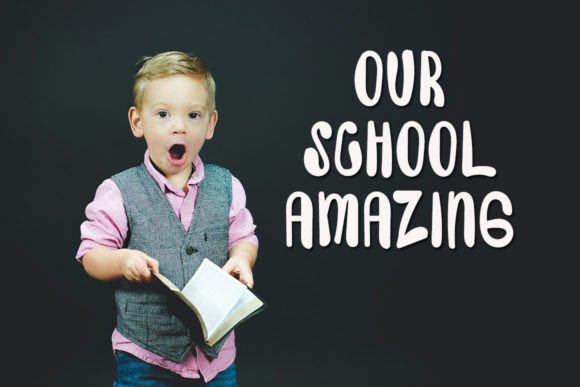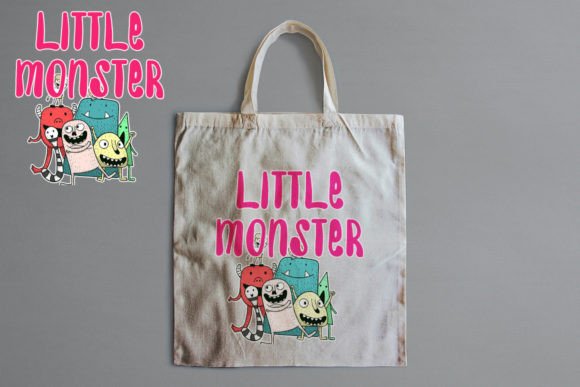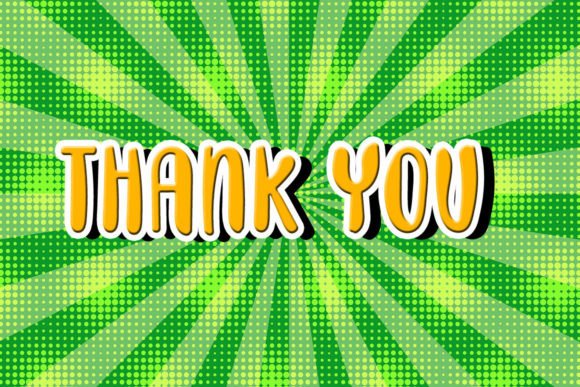
Introduction to Hello Thore Font
Have you ever stumbled upon a font that makes you smile? For designers, this is a common occurrence, but it’s especially true when you discover a font that perfectly captures the essence of your creative project. For me, that font is the Hello Thore Font. Its fresh, clean, and elegant design is the perfect combination of style and sophistication, making it a valuable addition to any design resource.
Imagine a font that can add a touch of joy to your designs, from a simple logo to a complex layout. The Hello Thore Font is that font. With its high-quality design and versatility, it’s no wonder why designers are turning to this font for their creative projects. Whether you’re working on a formal or informal project, this font is sure to impress. And the best part? It’s available for a free download, making it an accessible design resource for designers of all levels.
As a design resource, the Hello Thore Font is a game-changer. Its transparent background and elegant design make it perfect for use on a variety of backgrounds, from a simple white to a complex pattern. Whether you’re looking to add a touch of elegance to your design or simply want a high-quality font to use in your next project, the Hello Thore Font is an excellent choice.
Key Features of Hello Thore Font
- Unique, hand-drawn design ideal for creative projects requiring a personal touch.
- Transparent background, allowing for seamless integration with any design resource.
- Perfect for designers seeking a high-quality, free design resource with a personal touch.
Honest Review: Hello Thore Font
As a designer, I’m always on the lookout for high-quality design resources to enhance my creative projects. Recently, I came across the Hello Thore Font, and I must say it’s been a pleasant discovery.
What works well with this font is its unique and elegant design. The Hello Thore Font is perfect for creating a sophisticated and professional look for your projects. It’s also available for free download, which is a huge plus. The transparent background feature allows for seamless integration with any design.
Pros and Cons:
- ✨ Unique and elegant design
- ✨ Transparent background feature
- ⚠️ Limited font styles available
- ⚠️ Not suitable for bold or dramatic designs
Overall, I’m impressed with the Hello Thore Font. Its high quality and versatility make it a valuable addition to any designer’s toolkit. While it may not be perfect for every project, it’s definitely worth considering for your next creative endeavor.
Hello Thore Font
Hello Thore Font is a high-quality, free design resource ideal for creative projects. It features a transparent background, making it easy to use in various design applications.
Tips for Getting the Most Out of Hello Thore Font
To get the most out of Hello Thore Font, use it in conjunction with other design elements, such as images and graphics. Experiment with different font sizes, colors, and styles to create a unique look.
Hello Thore Font is ideal for use in a variety of creative projects, including social media graphics, blog posts, and presentations. Its transparent background makes it easy to use in combination with other design elements.